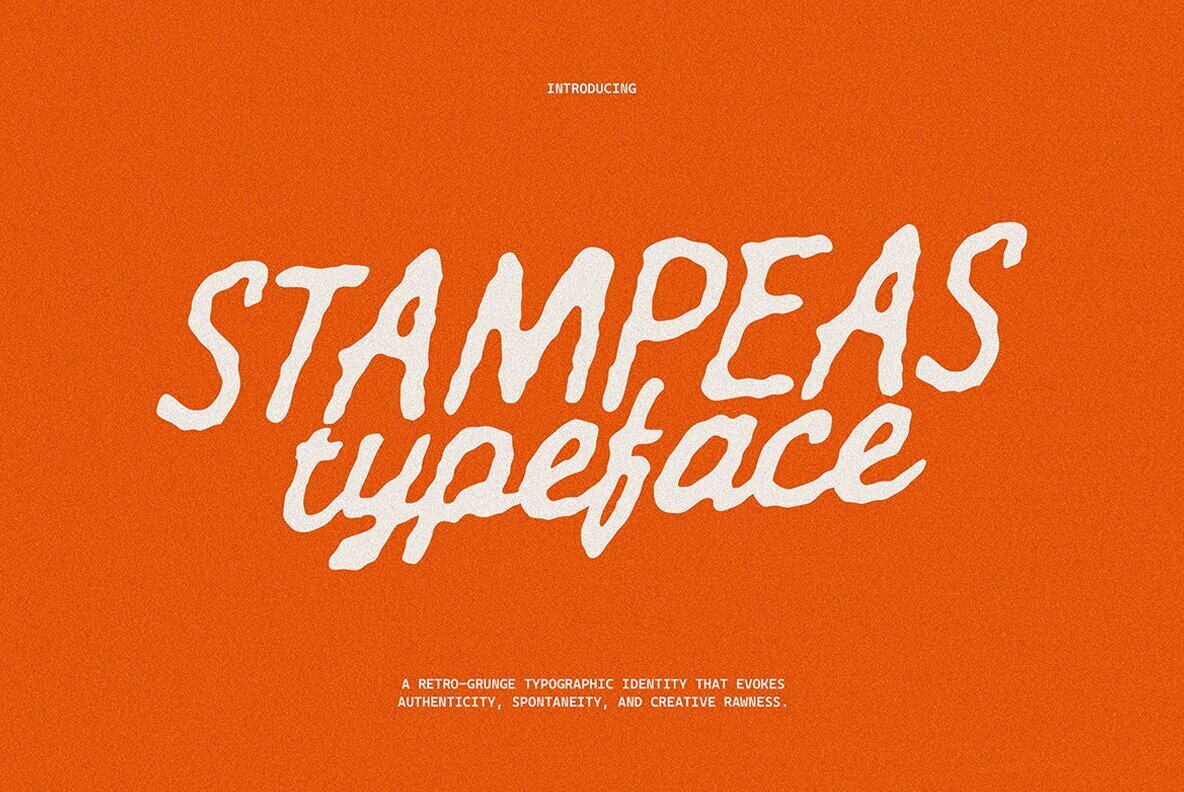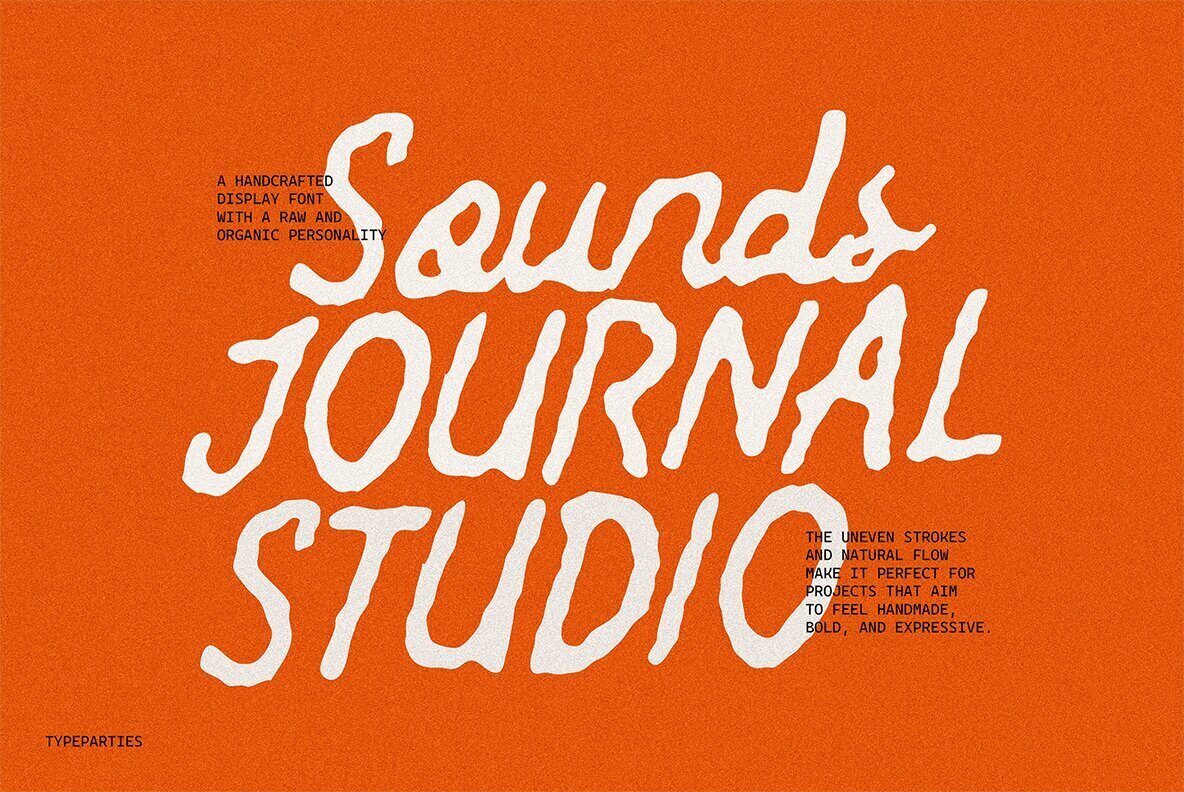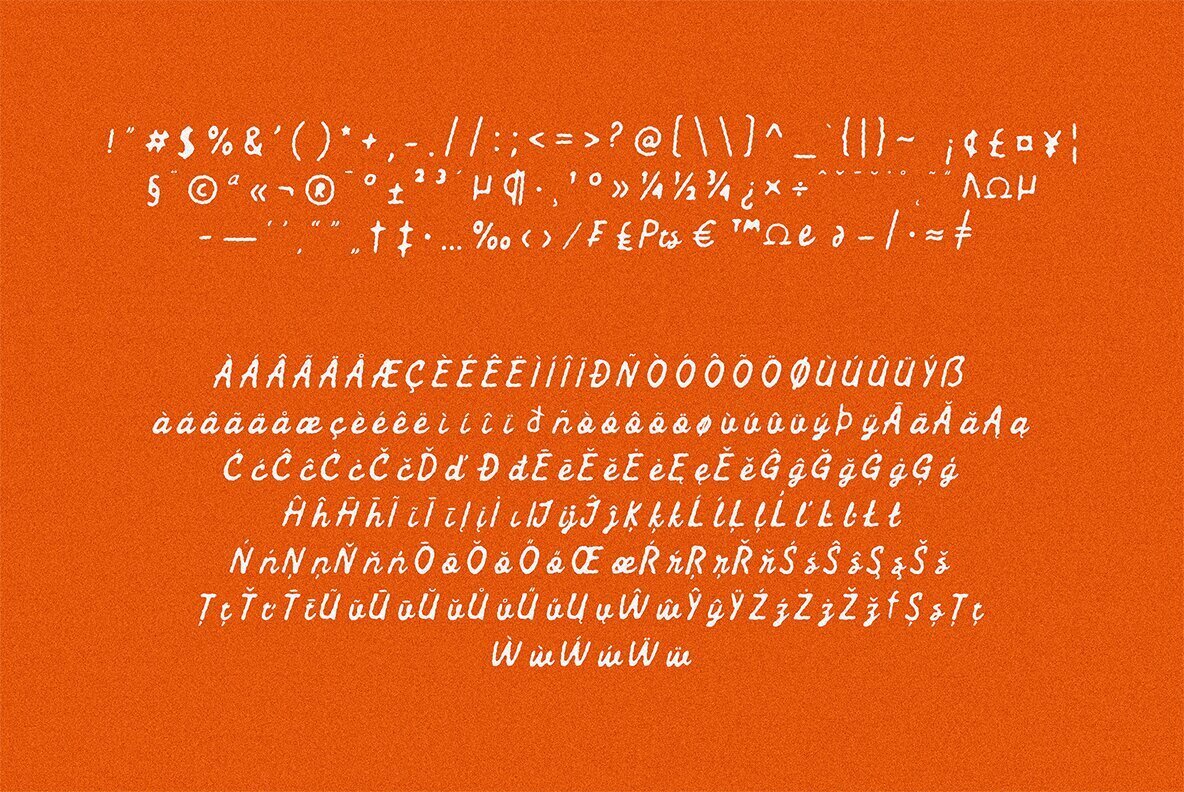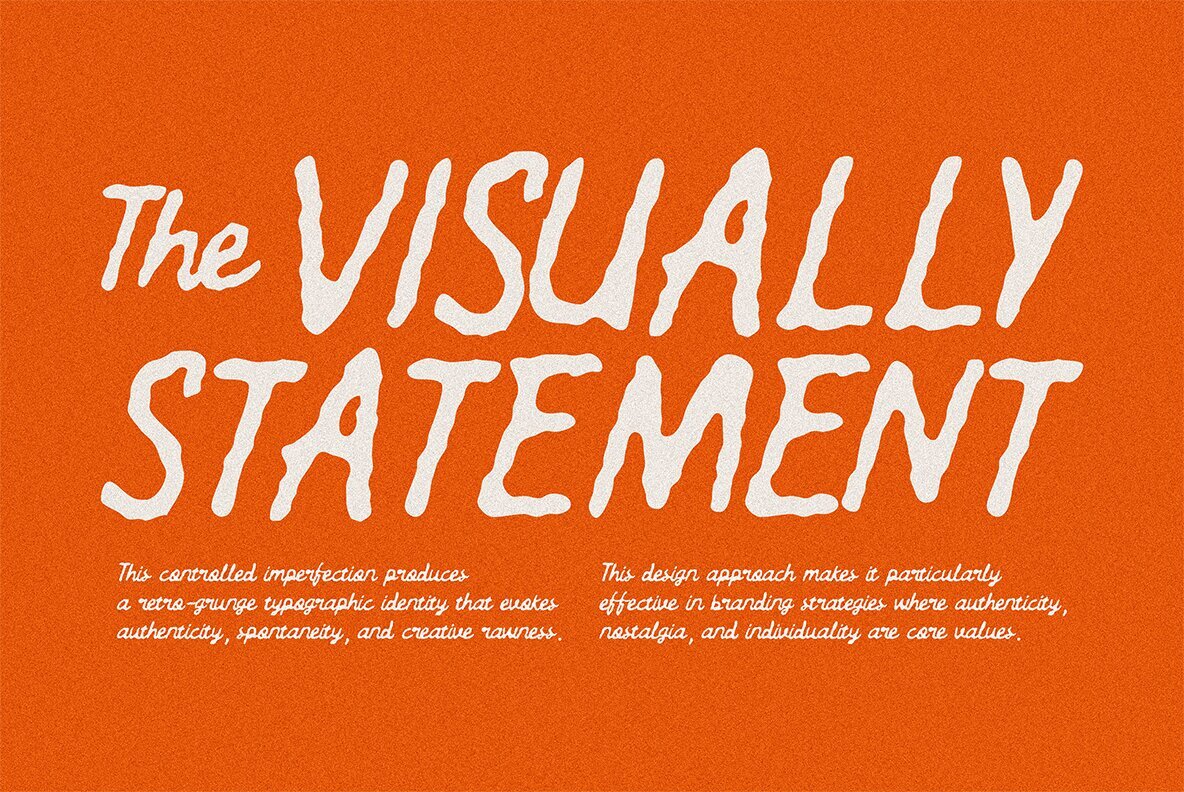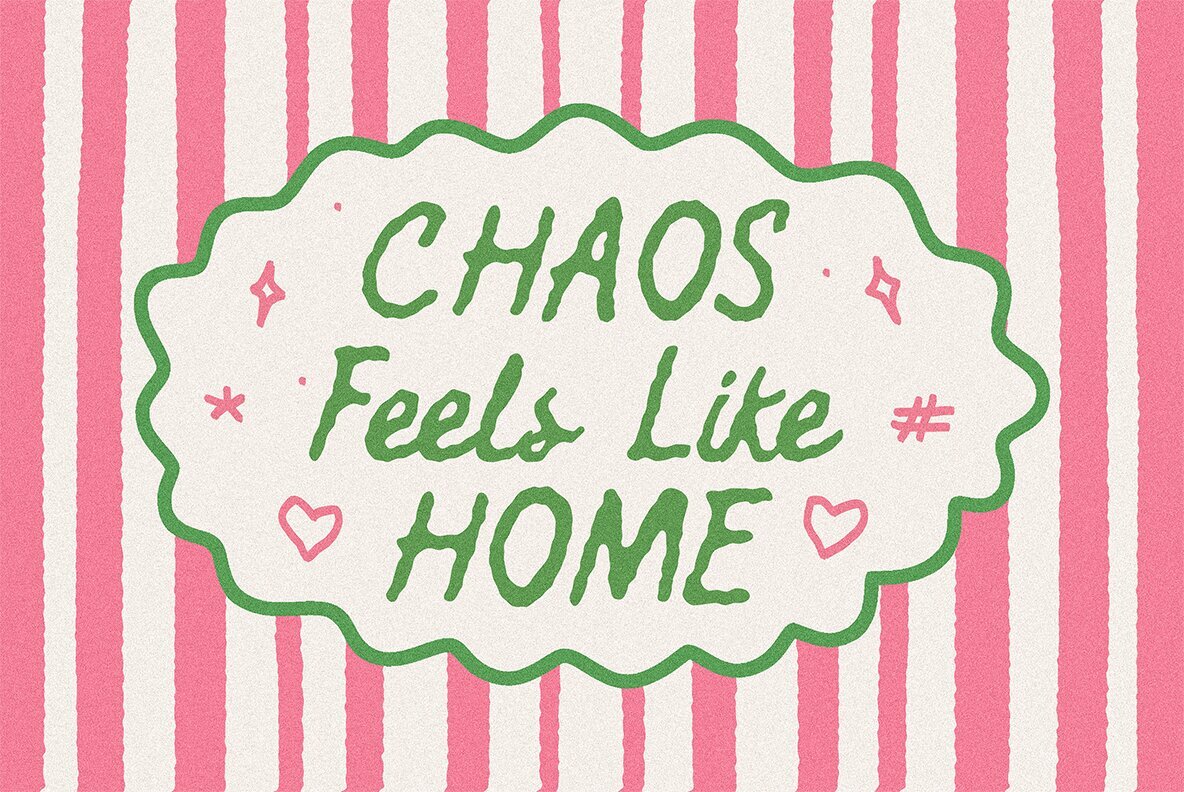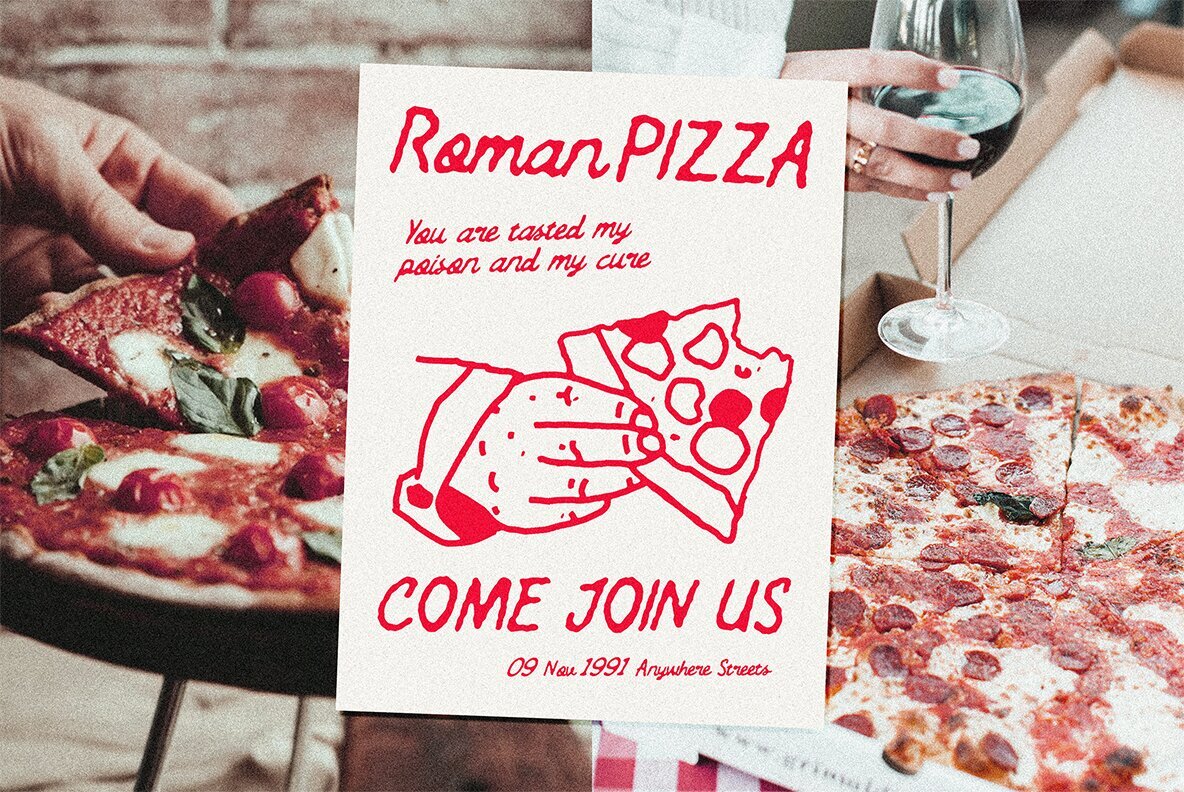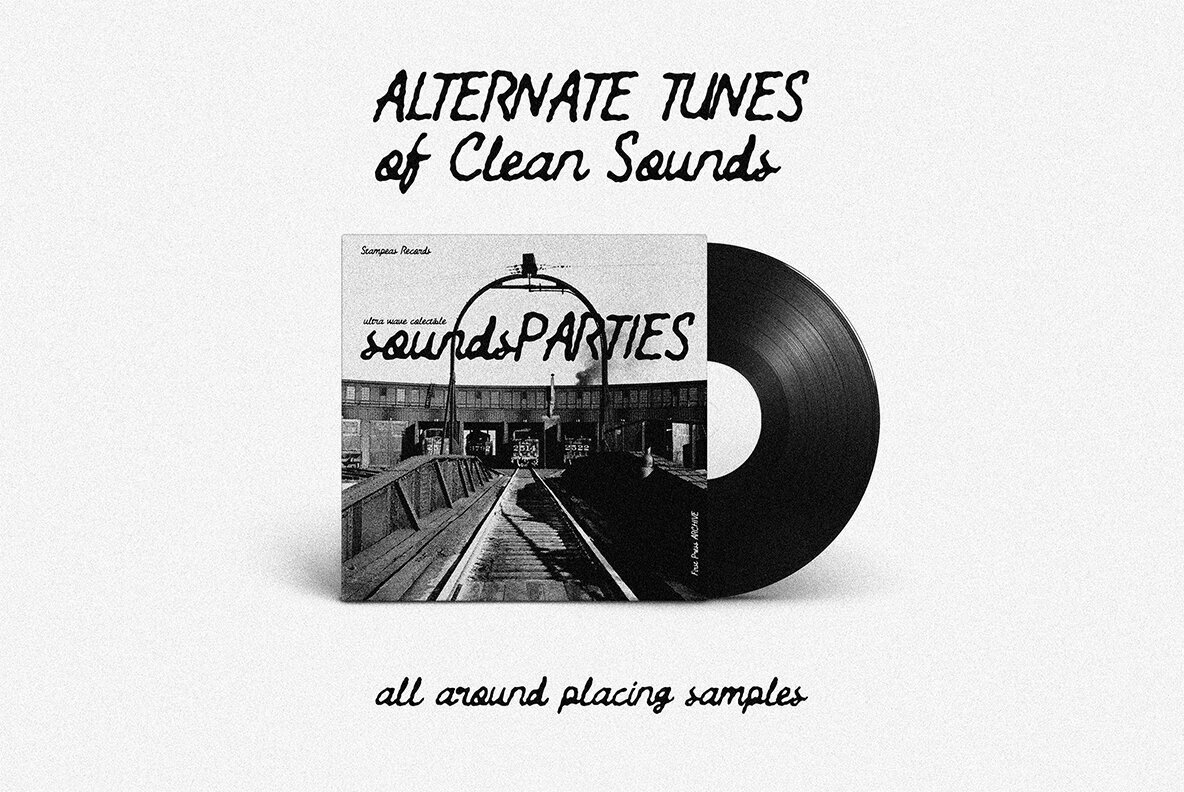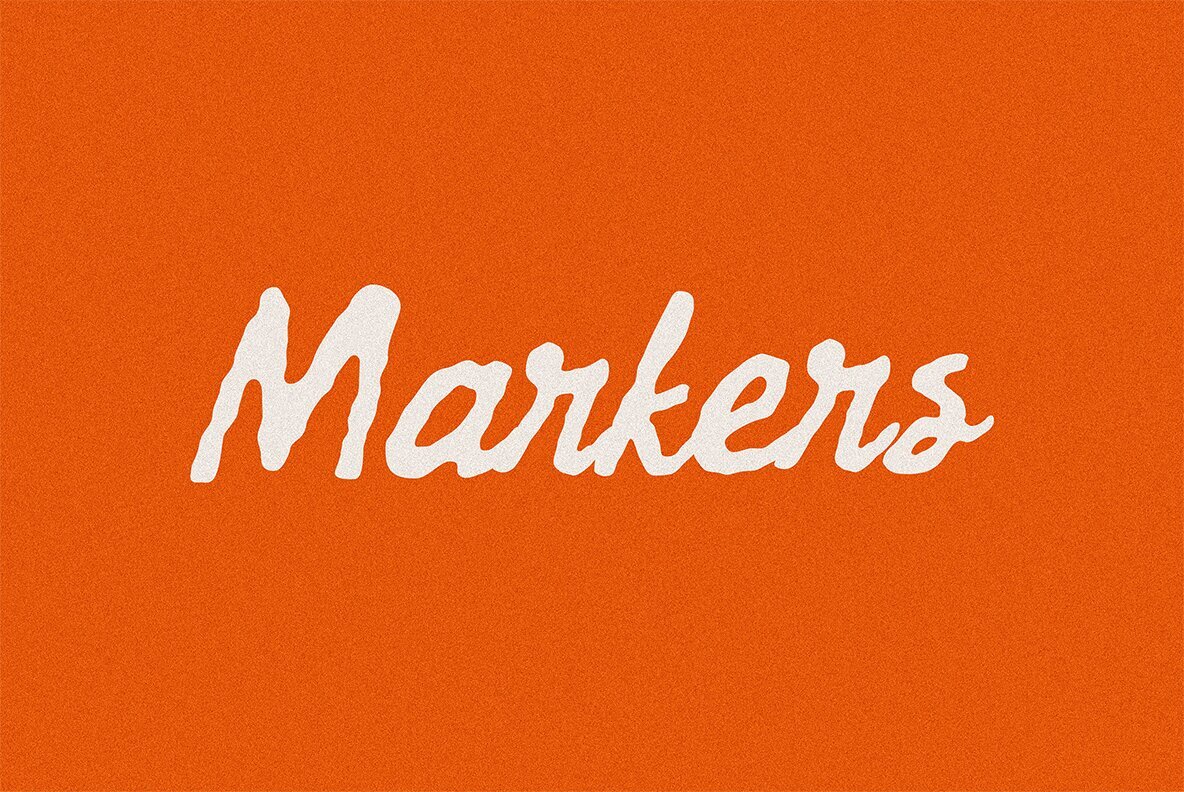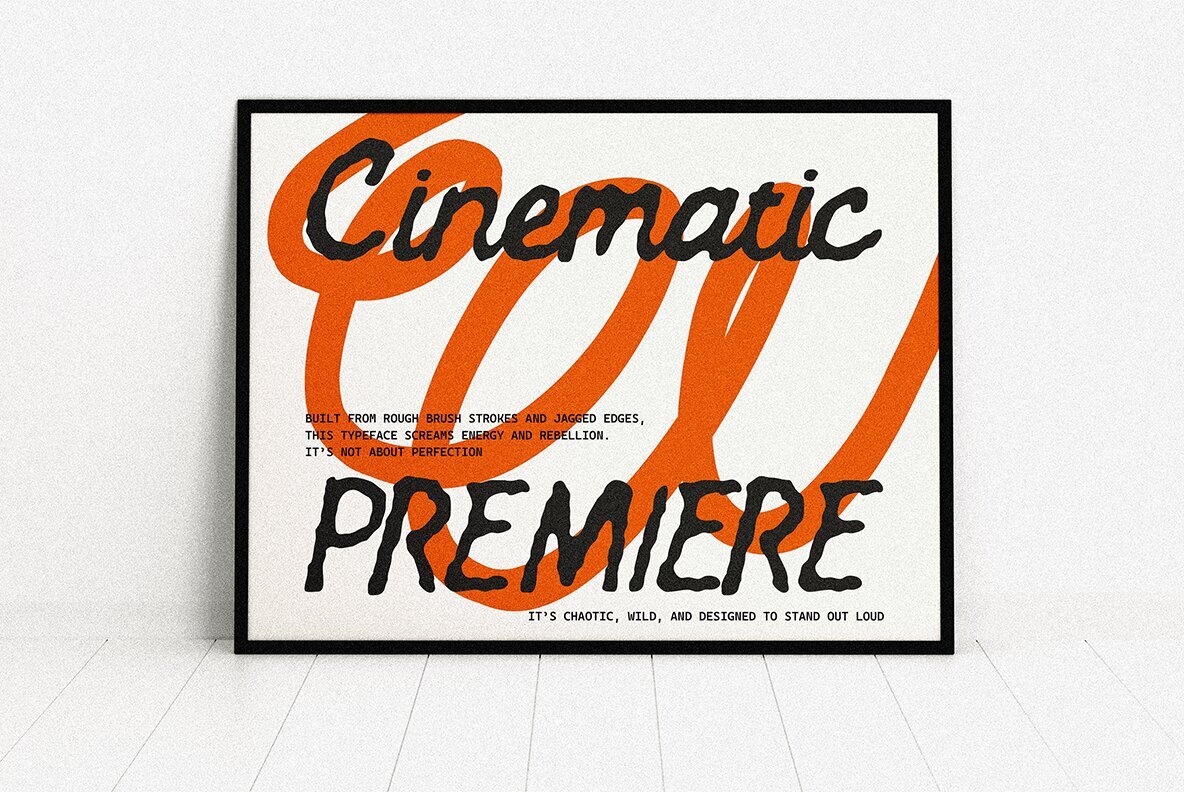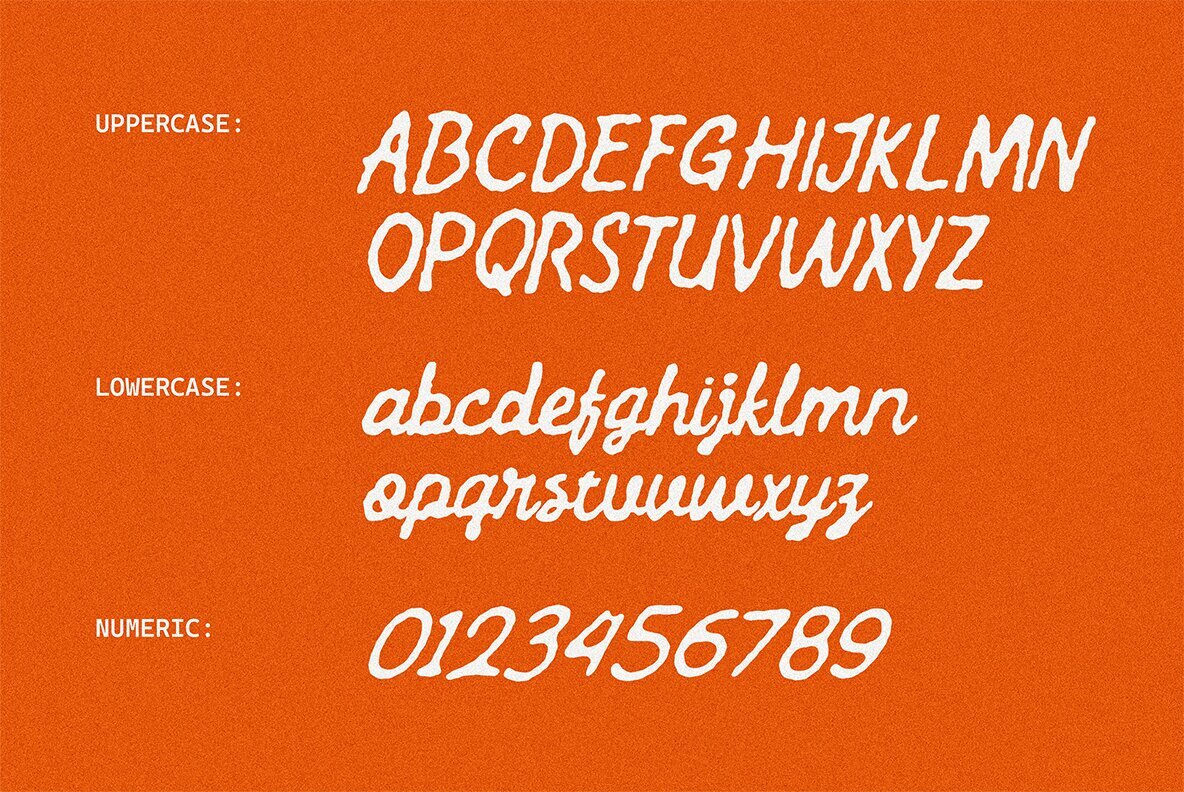
Stampeas Font
ATP Stampeas Regular
Stampeas is a handcrafted display font that exudes a raw and organic character, reminiscent of ink-stamped lettering. It delivers an authentic retro feel paired with indie aesthetics. Its uneven strokes and natural flow are ideal for projects that seek a handmade, bold, and expressive touch. Designed for logos, vintage posters, packaging, apparel branding, and music-related designs, Stampeas harnesses the spirit of stamped prints while maintaining a contemporary flair. Its imperfect shapes add a distinctive human element, offering a unique alternative to more structured typefaces. Features:Stampeas: Organic Display Font for Retro Designs